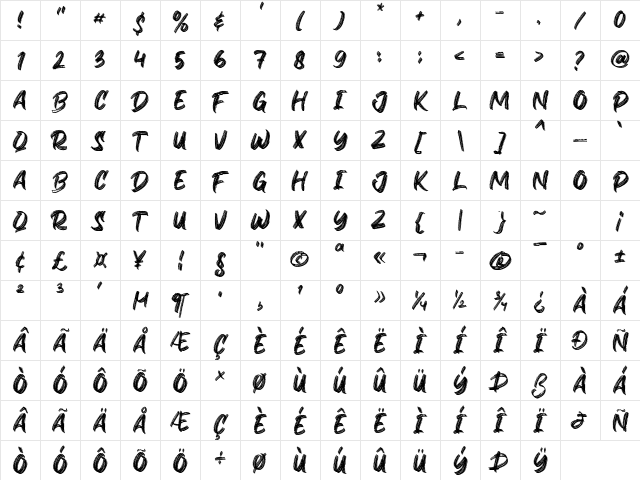
Jocker Block Regular
Foundry: Figuree Studio
Designer: Icep Anwar Fadhil
Design Context for Jocker Block
Jocker Block is a composed and adaptable typeface that performs quietly and consistently across a wide range of design contexts.